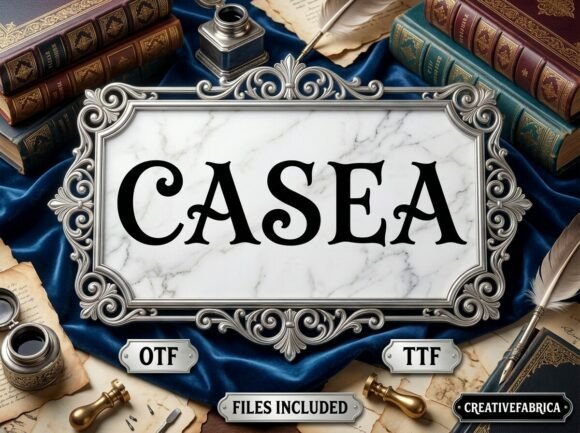
The Timeless Elegance of Casea Font: A Designer’s Dream
I still remember the design project that led me to discover Casea Font. I was working on a logo for a boutique bookstore, and I needed a font that would evoke a sense of classic sophistication. After hours of scouring the internet, I stumbled upon Casea, and it was love at first sight. The elegant, high-contrast letterforms and rhythmic, hand-drawn “ball terminals” instantly transported me to a world of vintage academic publishing and modern luxury branding.
A Personal Review of Casea Font
- ✅ Elegant and sophisticated design that’s perfect for high-end branding
- ✅ Unique “ball terminals” and teardrop flourishes that add a touch of personality
- ✅ Medium structural weight that’s both sturdy and refined
- ✅ Perfect for creating a sense of luxury and prestige
While Casea Font is an excellent choice for many design projects, there are a few things to keep in mind. For example, the font’s high-contrast letterforms can be challenging to read at smaller sizes. Additionally, some users may find the font’s stylistic alternates and glyphs a bit tricky to navigate.
- 🤔 May be difficult to read at smaller sizes due to high-contrast letterforms
- ⚠️ Some users may find the font’s stylistic alternates and glyphs challenging to use
The Backstory of Casea Font
Casea Font was designed with the goal of capturing the essence of vintage academic publishing and modern luxury branding. The font’s creator was inspired by the classic serif fonts of the past, but wanted to create something new and unique. The result is a font that’s both elegant and sophisticated, with a touch of personality and whimsy.
Q: What is the best way to use Casea Font?
A: Casea Font is best used for high-end branding, luxury packaging, and literary projects. Its elegant and sophisticated design makes it perfect for creating a sense of prestige and luxury.
Q: Is Casea Font easy to read?
A: Casea Font is generally easy to read, but its high-contrast letterforms can be challenging to read at smaller sizes. It’s best used at larger sizes, such as headings or titles.